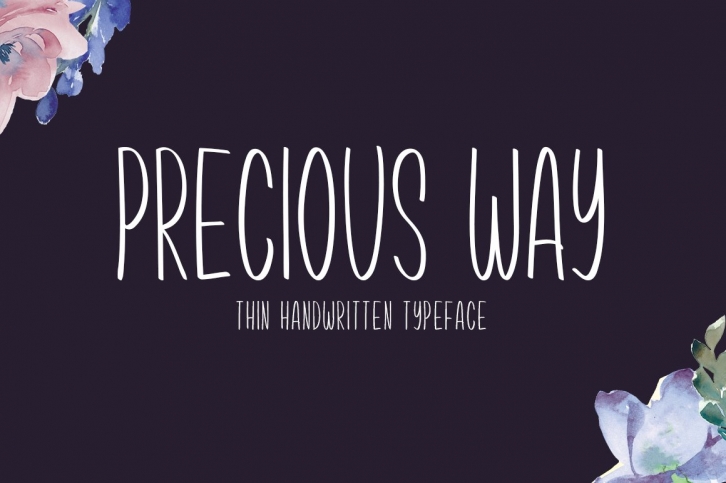
Precious Way is a beautiful font that was designed by Seemly Fonts. It's a great choice for designers and creatives who need such a font. It was released on March 4, 2021 and the file size is 21.36 MB. Precious Way may give a more youthful, expressive and casual look to your project. It is a very beautiful, refined, elegant, and high-quality font.